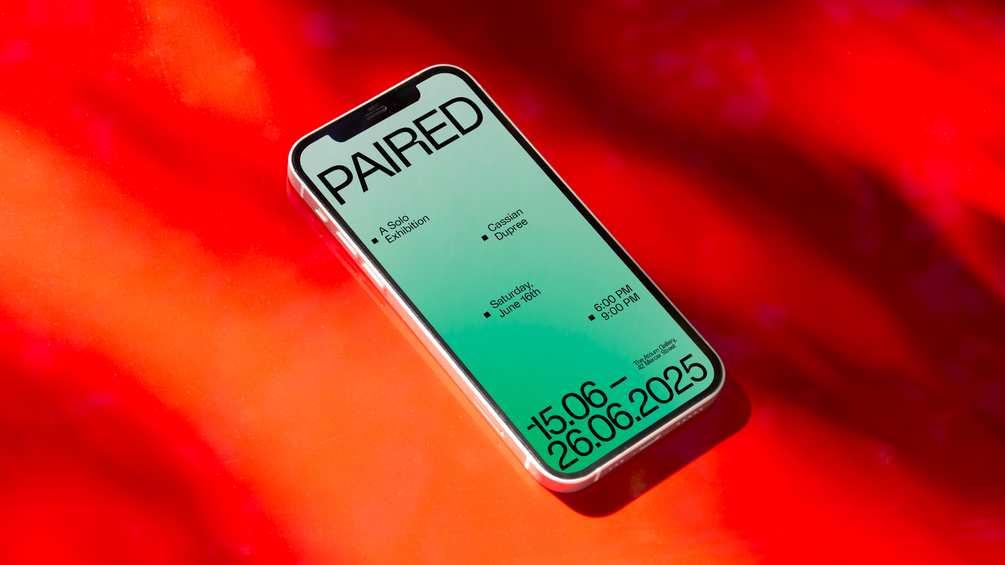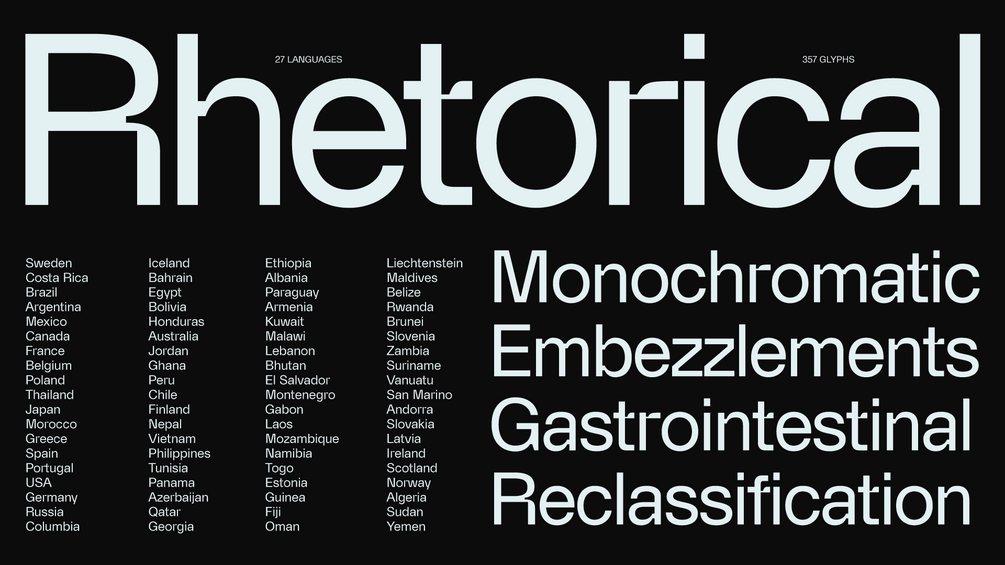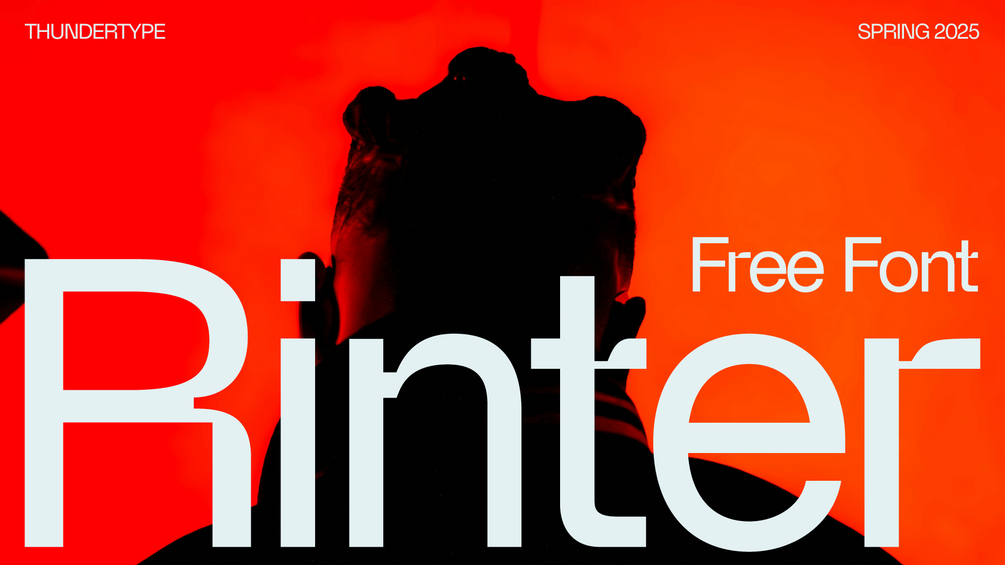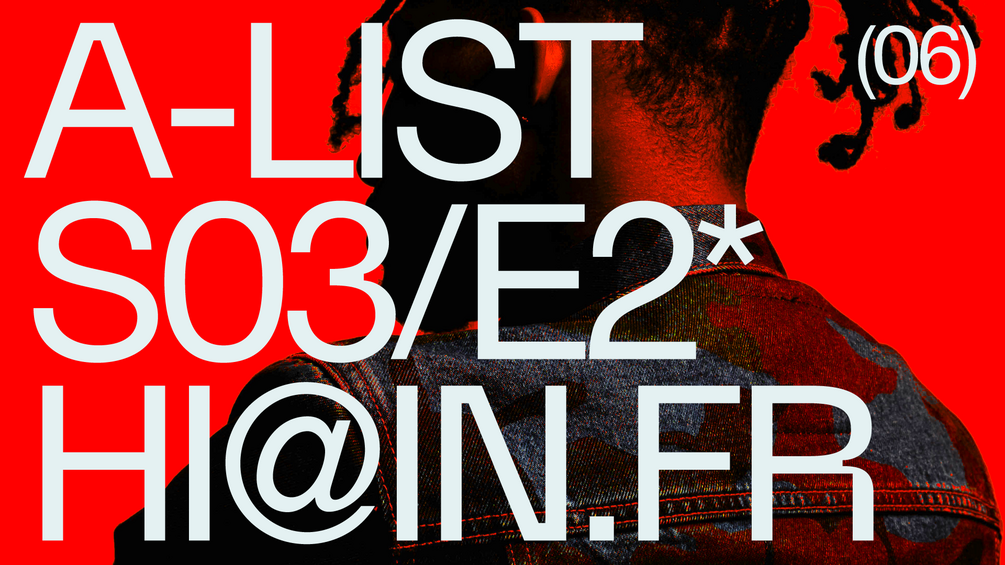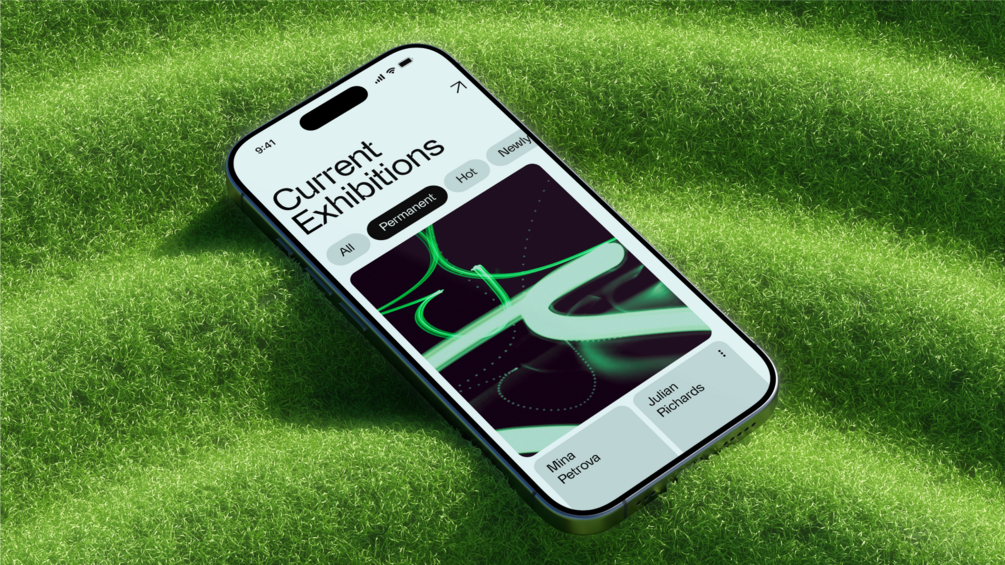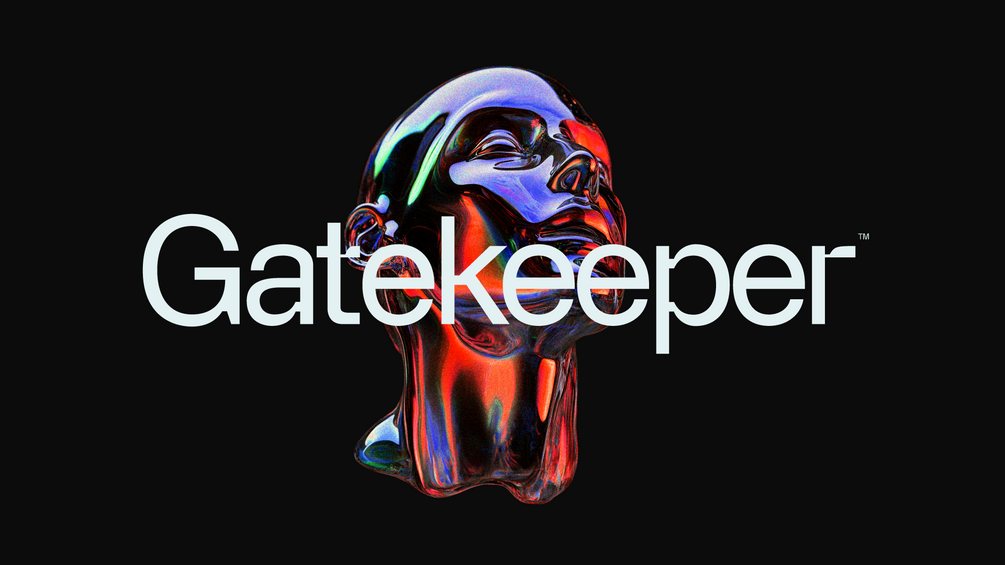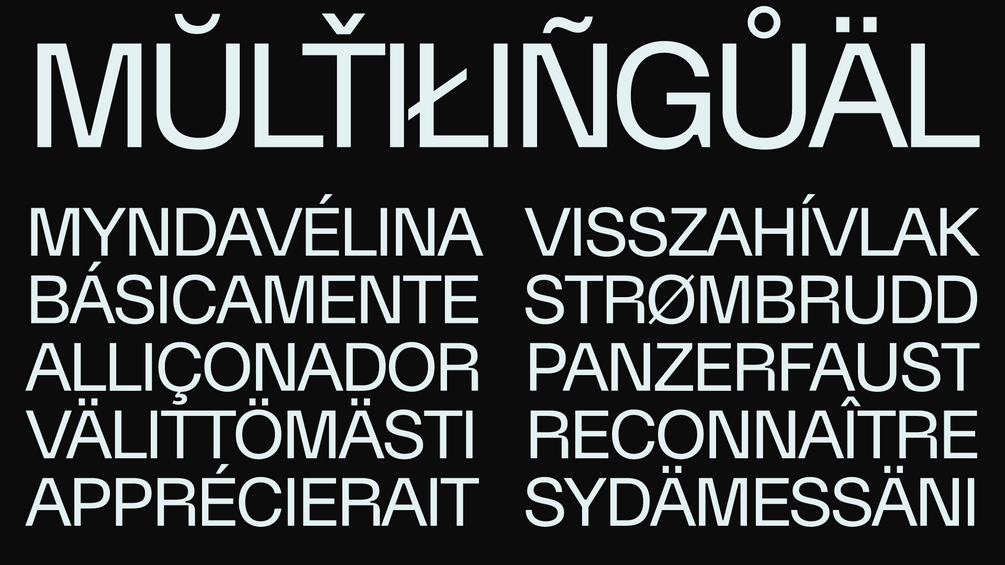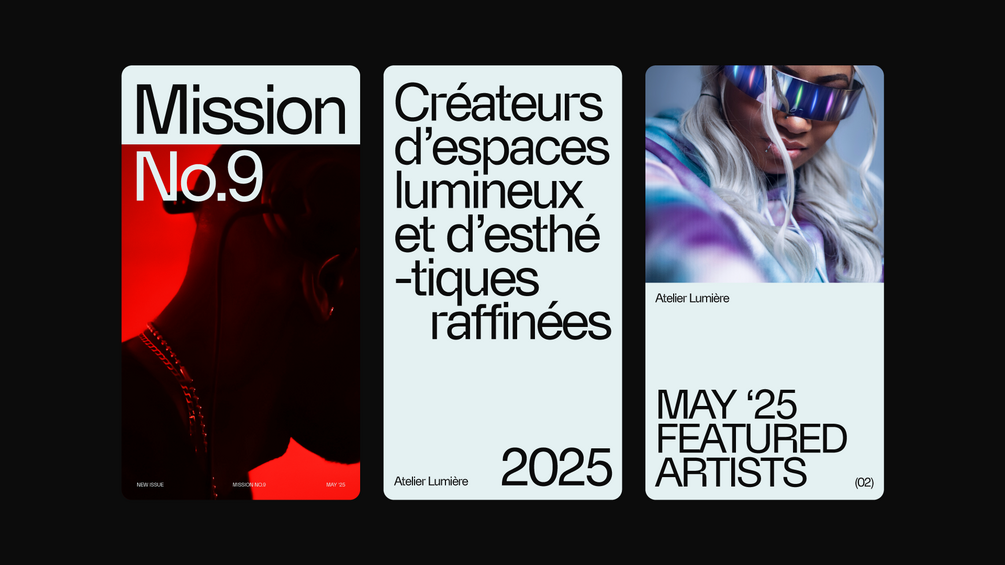
Rinter - Free font
Rinter is our new sans-serif typeface, inspired by Swiss modernism and infused with a tech flare.
Derived from the root word Rint (meaning "to work hard" or "to toil"), Rinter is designed to be the new favorite workhorse font for web and graphic designers.
Inspired by iconic grotesque typefaces like Helvetica and Akzidenz, Rinter pays homage to Swiss modernism while introducing a modern twist through sharp corners and inktraps.